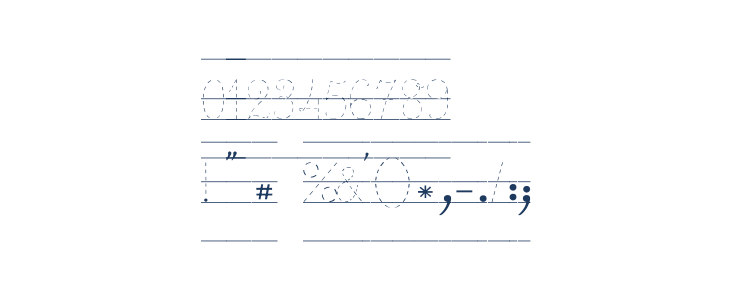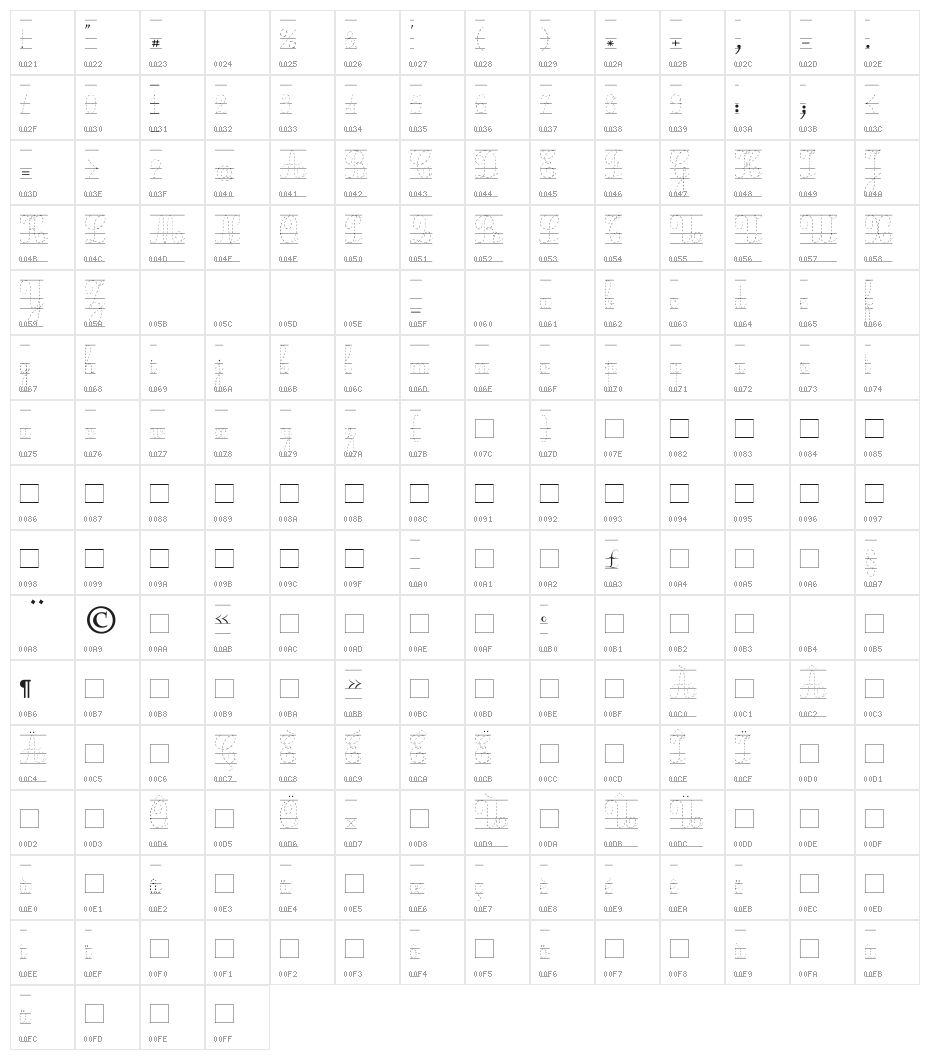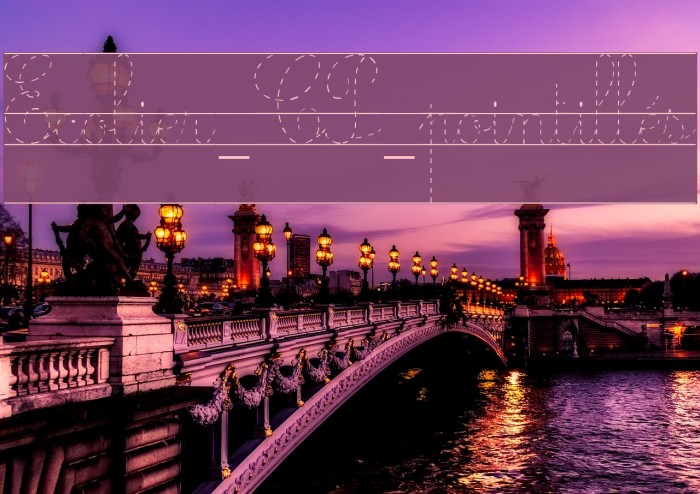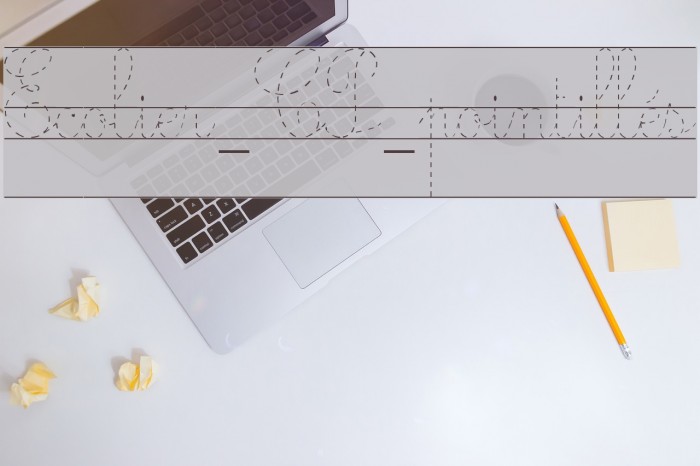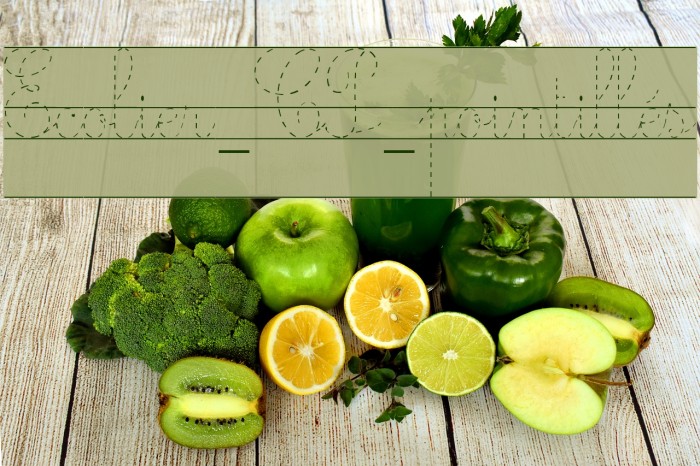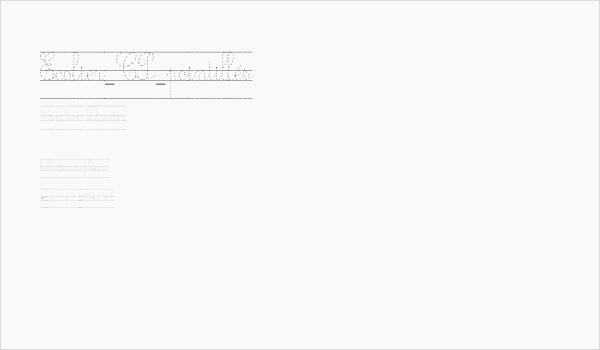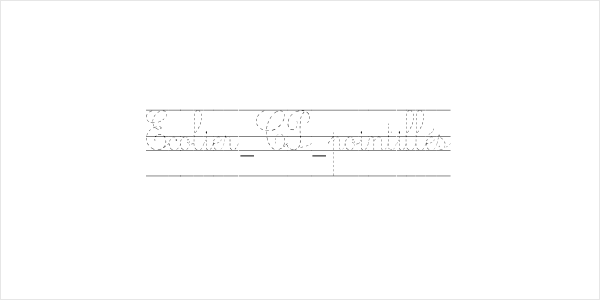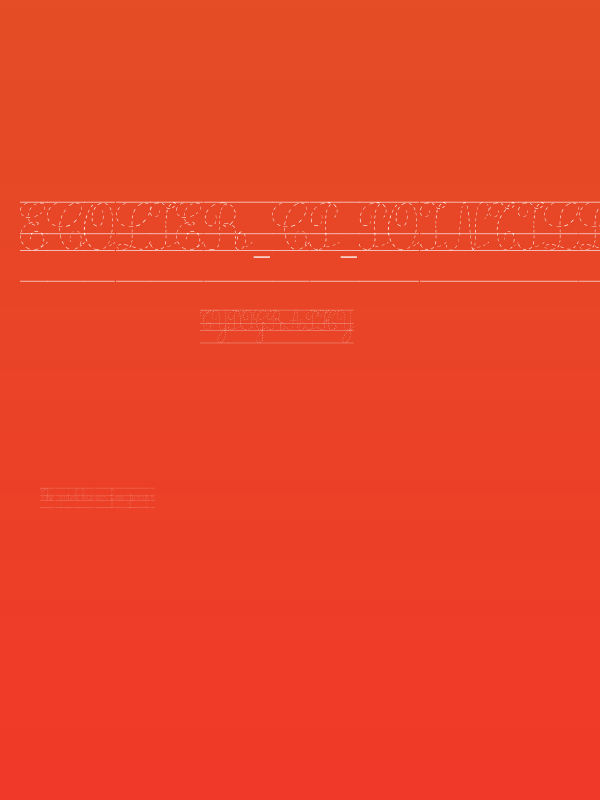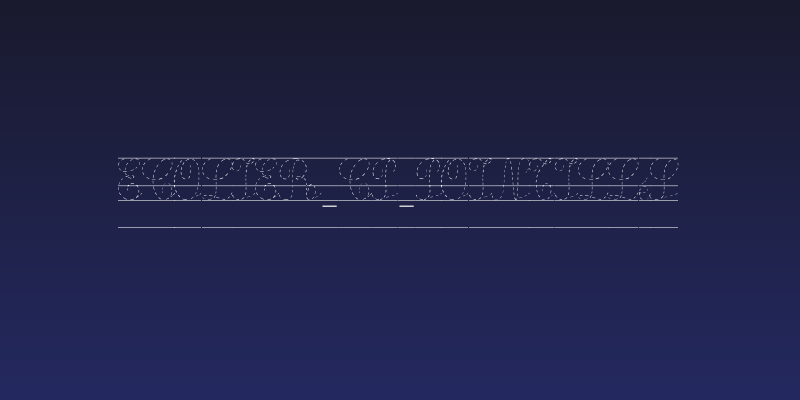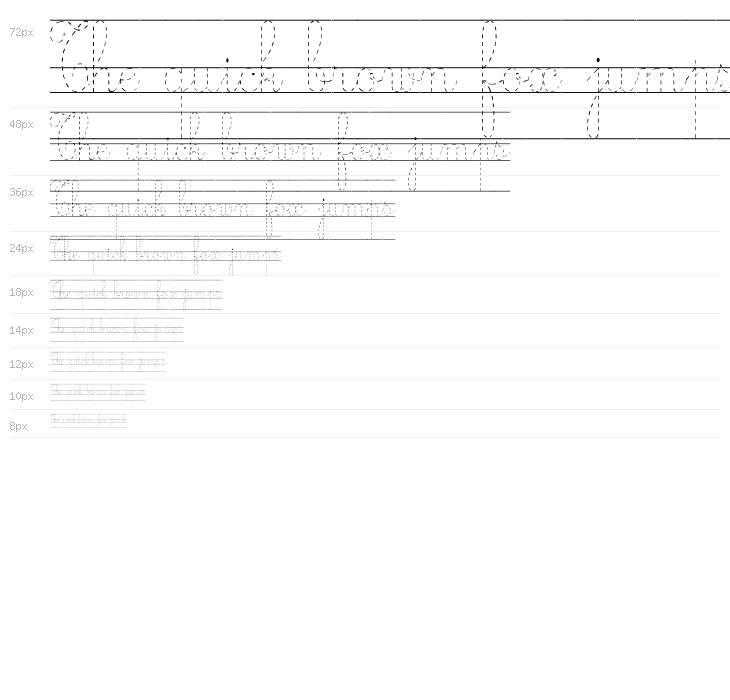
Ecolier_CP_pointillés Font
Ecolier_CP_pointillés Description
This font features a unique dotted style that mimics the appearance of handwriting practice sheets. Each character is composed of evenly spaced dots, creating a playful and educational aesthetic. The uppercase and lowercase letters maintain a consistent form, with smooth curves and rounded edges, making it ideal for teaching handwriting. Numbers and special characters follow the same dotted pattern, ensuring uniformity across all glyphs. The font's design is both functional and visually appealing, capturing the essence of traditional cursive writing while offering a modern twist. Its dotted structure not only serves an educational purpose but also adds a decorative element that can be used creatively in various design projects.
| Use Case | Educational materials, decorative designs, playful projects. |
| Proposed Projects | Perfect for educational materials, children's books, playful invitations, and creative design projects that require a handwritten touch. |